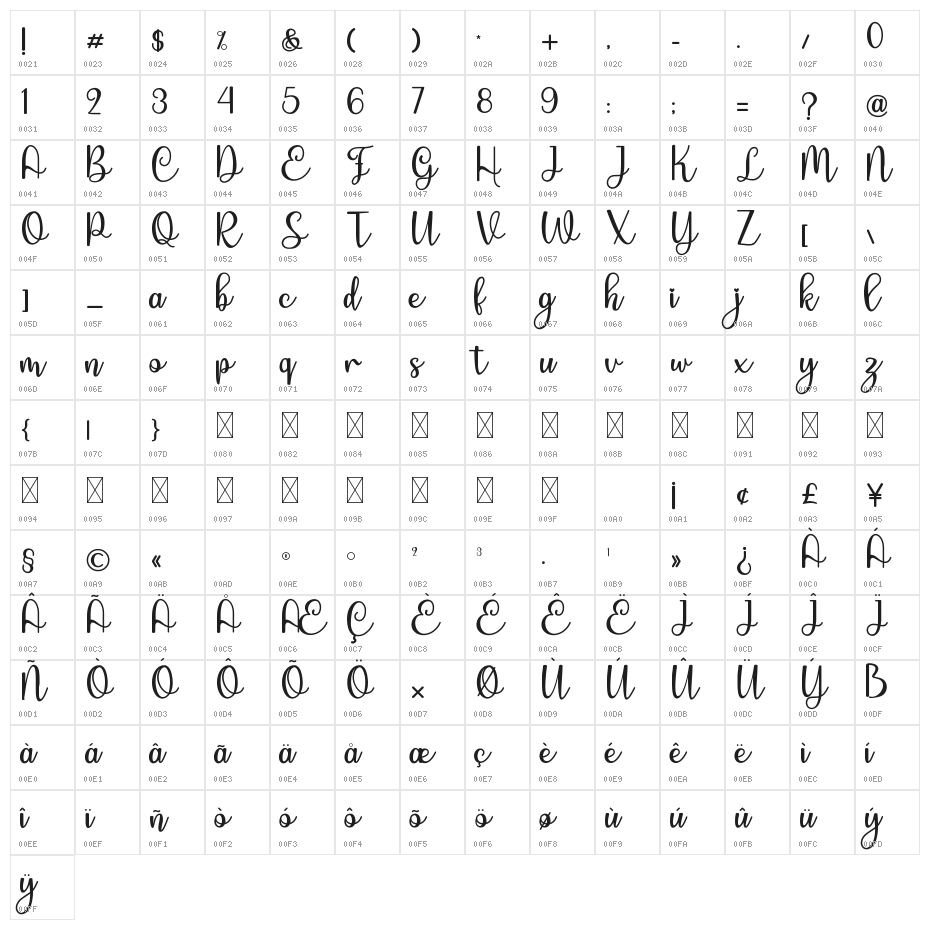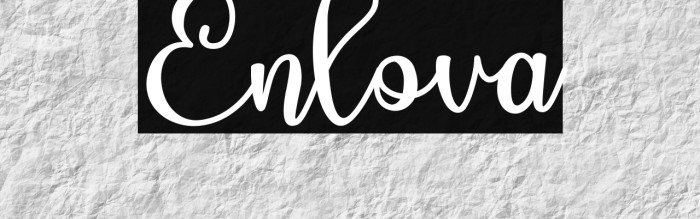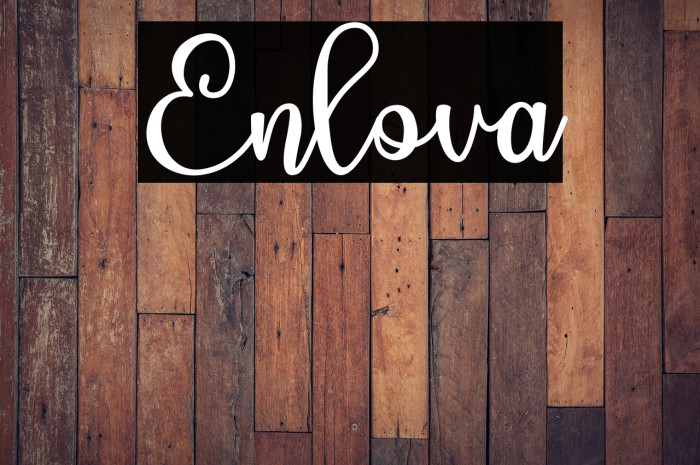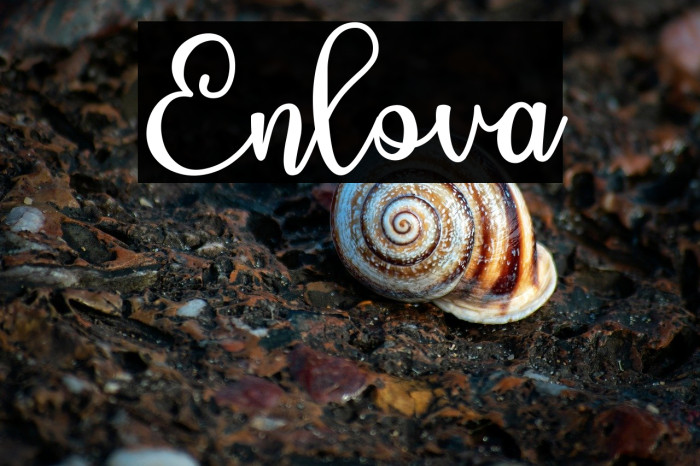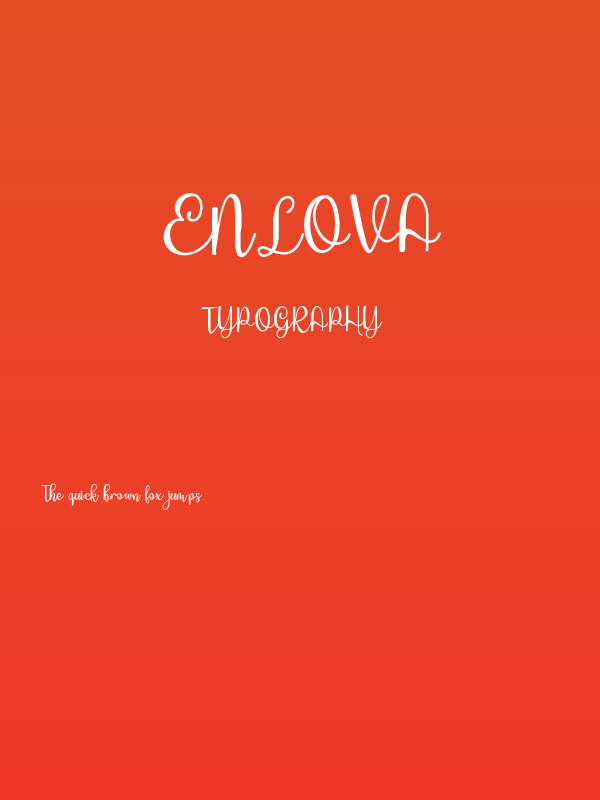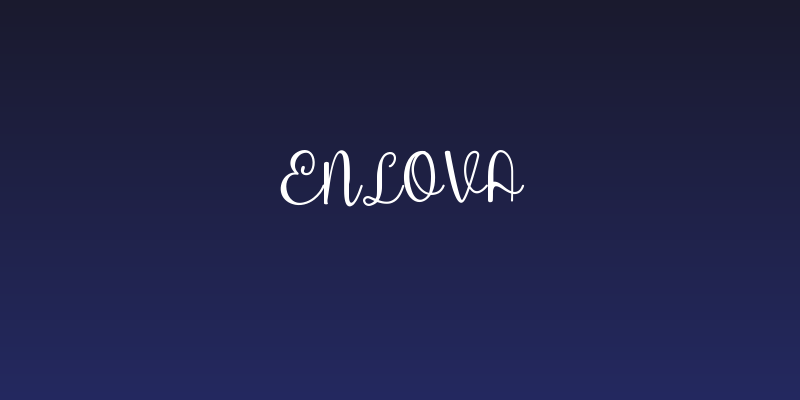
Enlova Font
Enlova Description
This font features a playful and elegant script style with a handwritten touch. The uppercase letters are characterized by smooth, flowing lines and gentle curves, giving them a sophisticated yet approachable appearance. The lowercase letters maintain the same fluidity, with some characters having unique loops and swashes that add a whimsical flair. The numerals are clean and straightforward, complementing the overall style without detracting from the script's charm. Special characters are designed to match the font's aesthetic, ensuring consistency across all text elements. This font's versatility makes it suitable for various creative projects.